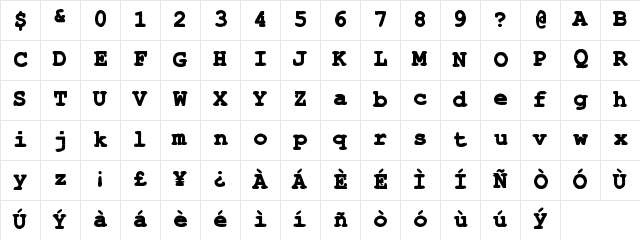
StitchyTimes Regular
Foundry: Xerographer Fonts
Designer: Max Infeld
Design Context for StitchyTimes
StitchyTimes is a composed and adaptable typeface that performs quietly and consistently across a wide range of design contexts.